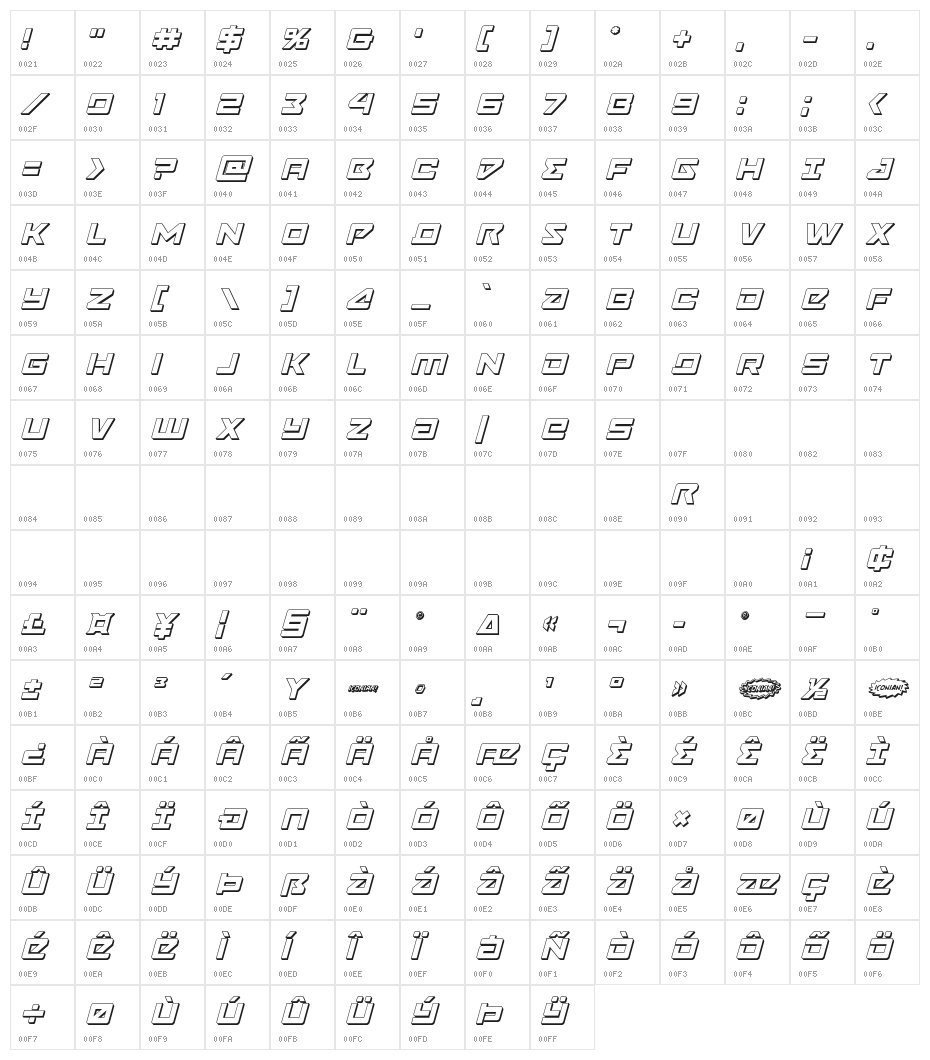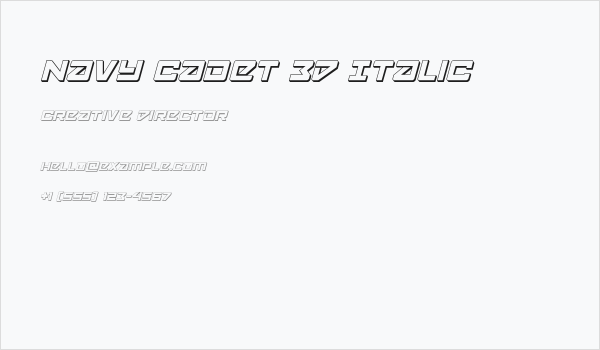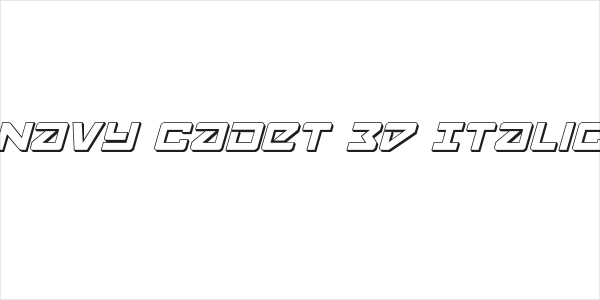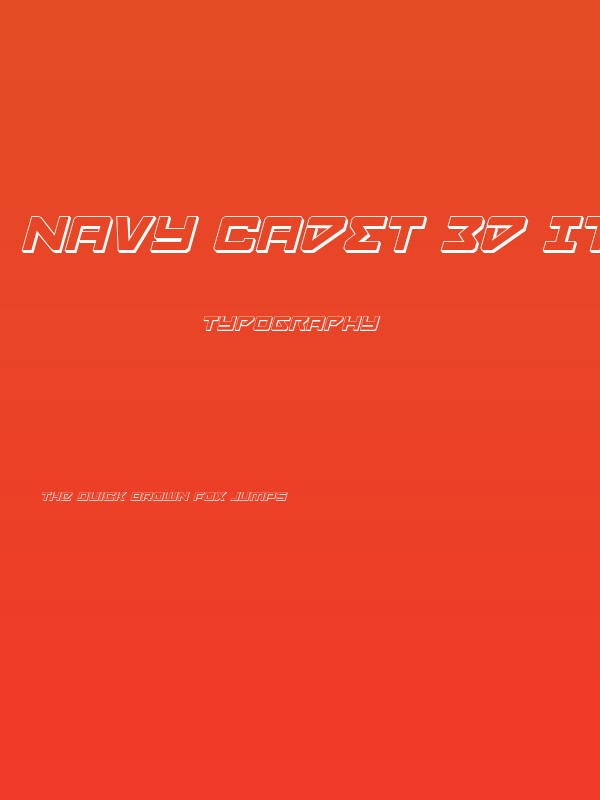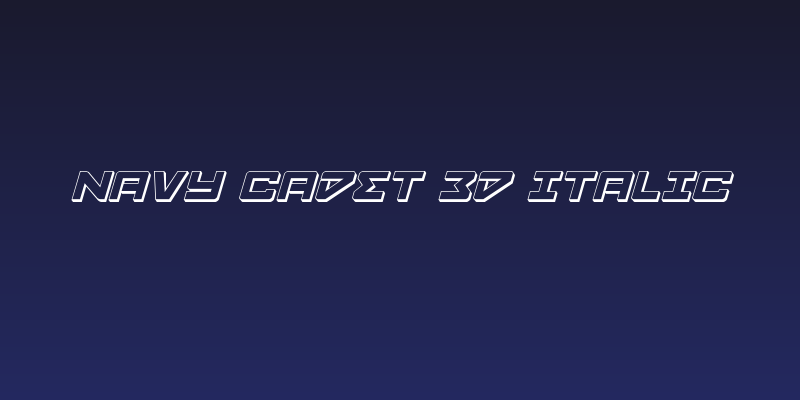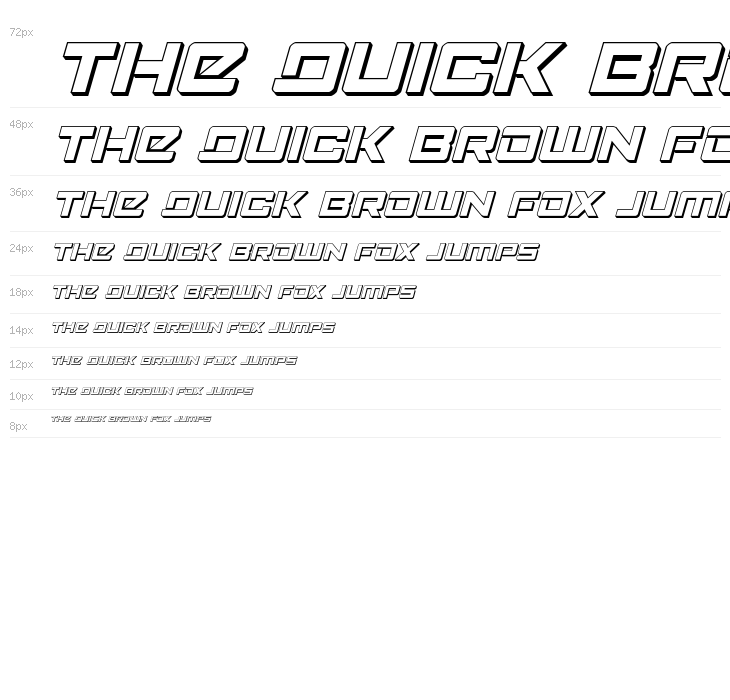
Navy Cadet 3D Italic Font
Navy Cadet 3D Italic Description
This font features a bold, three-dimensional design with a distinct italic slant, giving it a dynamic and futuristic appearance. The characters are outlined, creating a sense of depth and movement. The geometric shapes and sharp angles contribute to its modern and edgy style, making it stand out in any design. The uppercase and lowercase letters maintain a consistent style, with numerals and special characters following the same bold, outlined aesthetic. This font is ideal for projects that require a strong visual impact.
| Proposed Projects | Ideal for video game titles, sci-fi movie posters, tech branding, and sports team logos. |